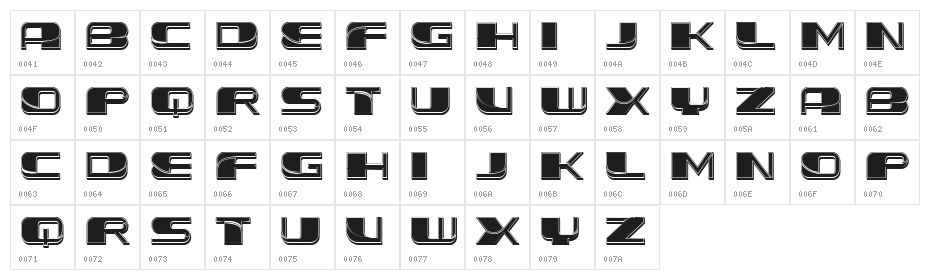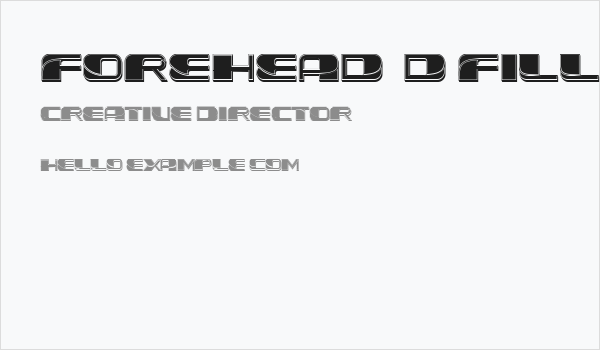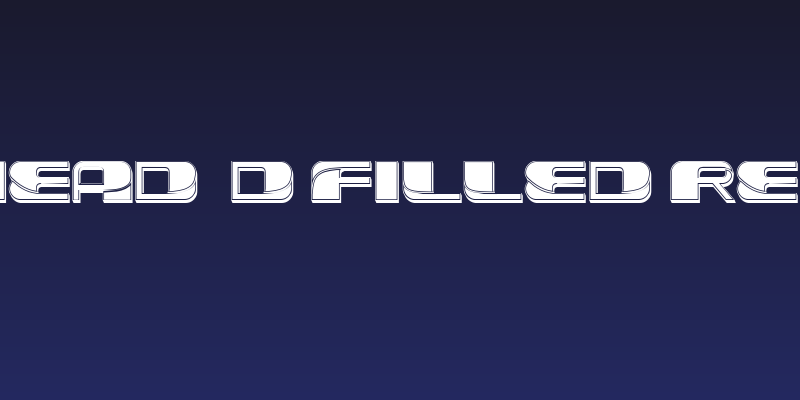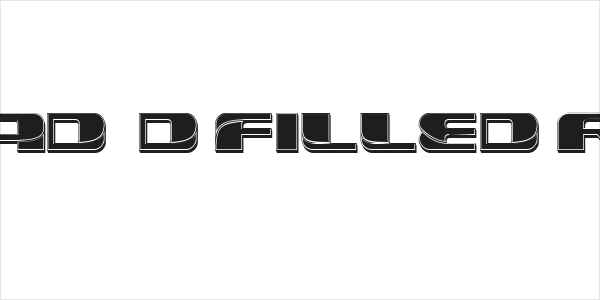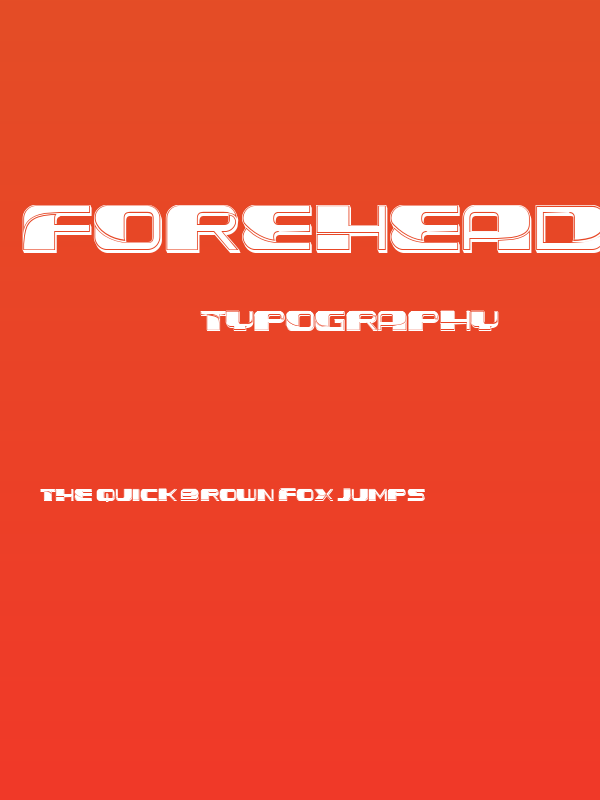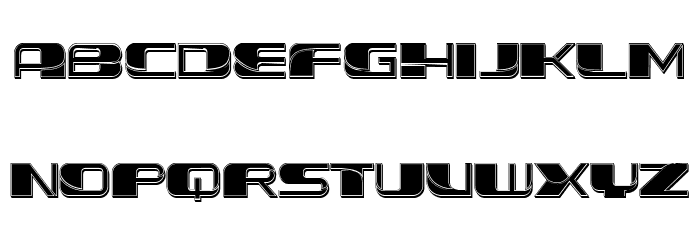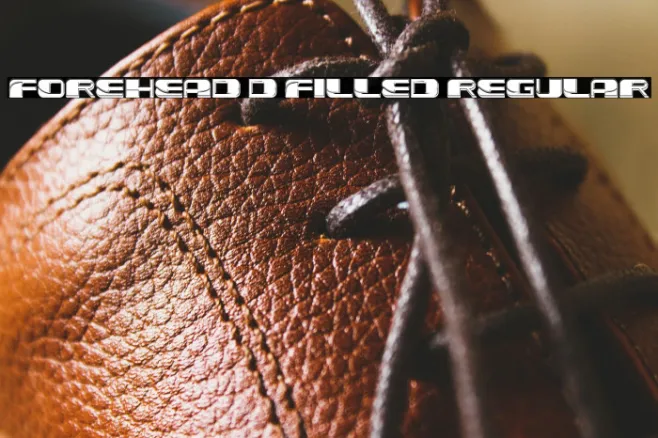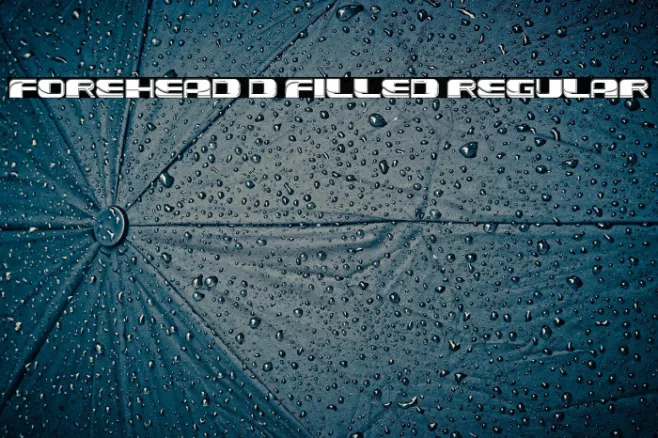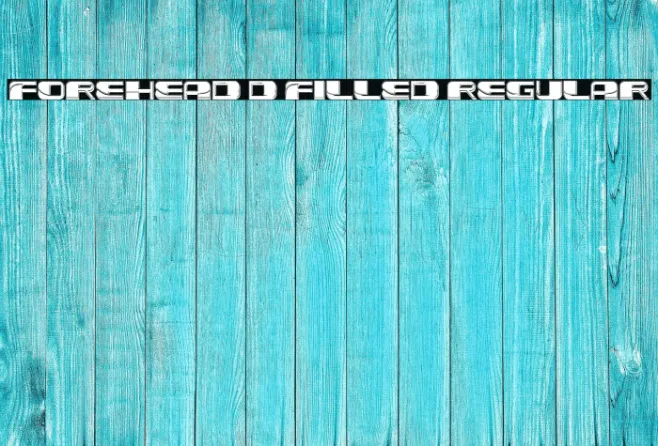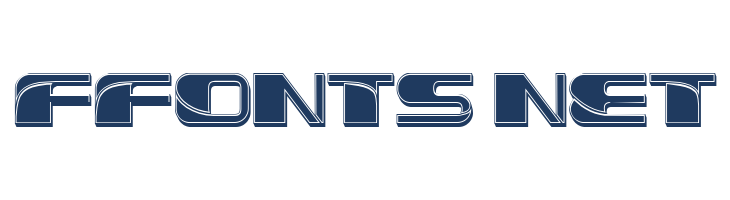
Forehead 3D Filled Regular Font
This font features a bold, futuristic design with a 3D effect that gives it a striking, dimensional appearance. The characters are wide and have a filled, solid look, with sharp angles and clean lines that create a sense of depth and modernity. The uppercase letters are particularly prominent, making them ideal for attention-grabbing headlines or titles. The font's unique style is characterized by its geometric shapes and the illusion of shadowing, which adds a layer of complexity and visual interest. It is well-suited for projects that require a contemporary and dynamic aesthetic, such as technology-related branding, sci-fi themed designs, or innovative product packaging.
| Proposed Projects | Ideal for technology branding, sci-fi themes, and innovative product packaging. |